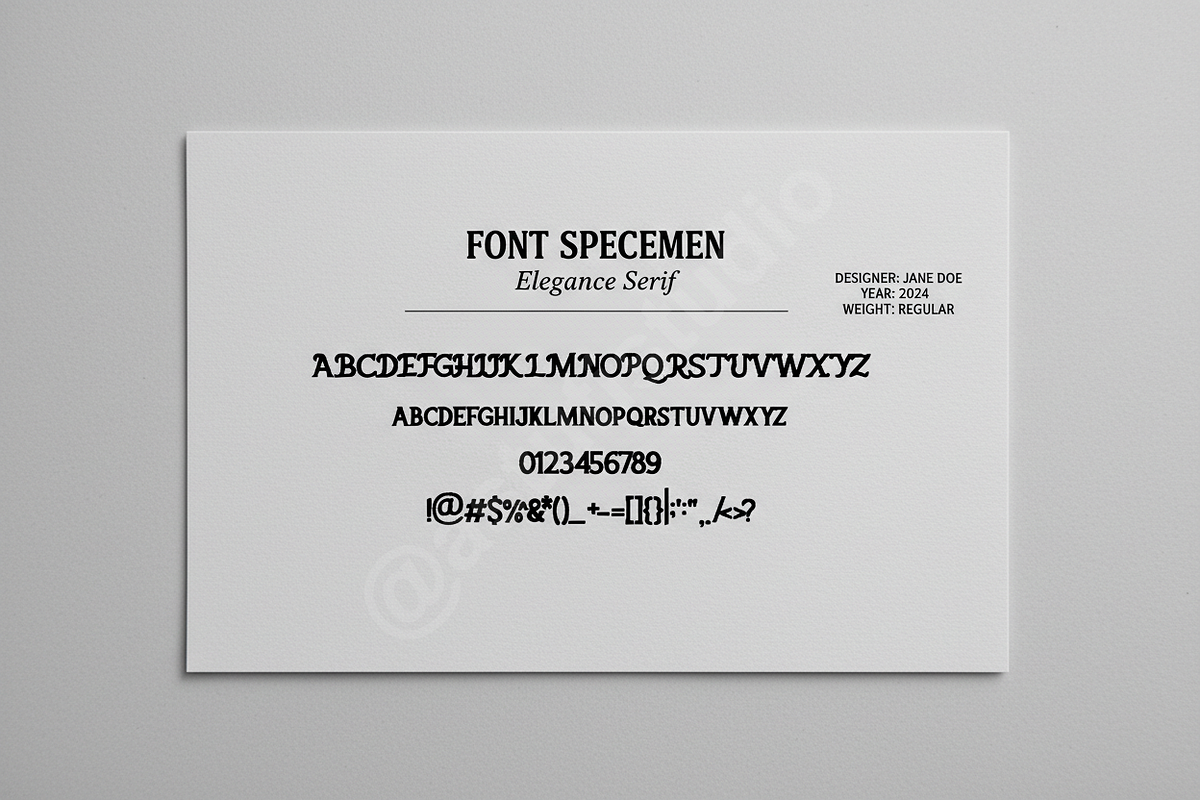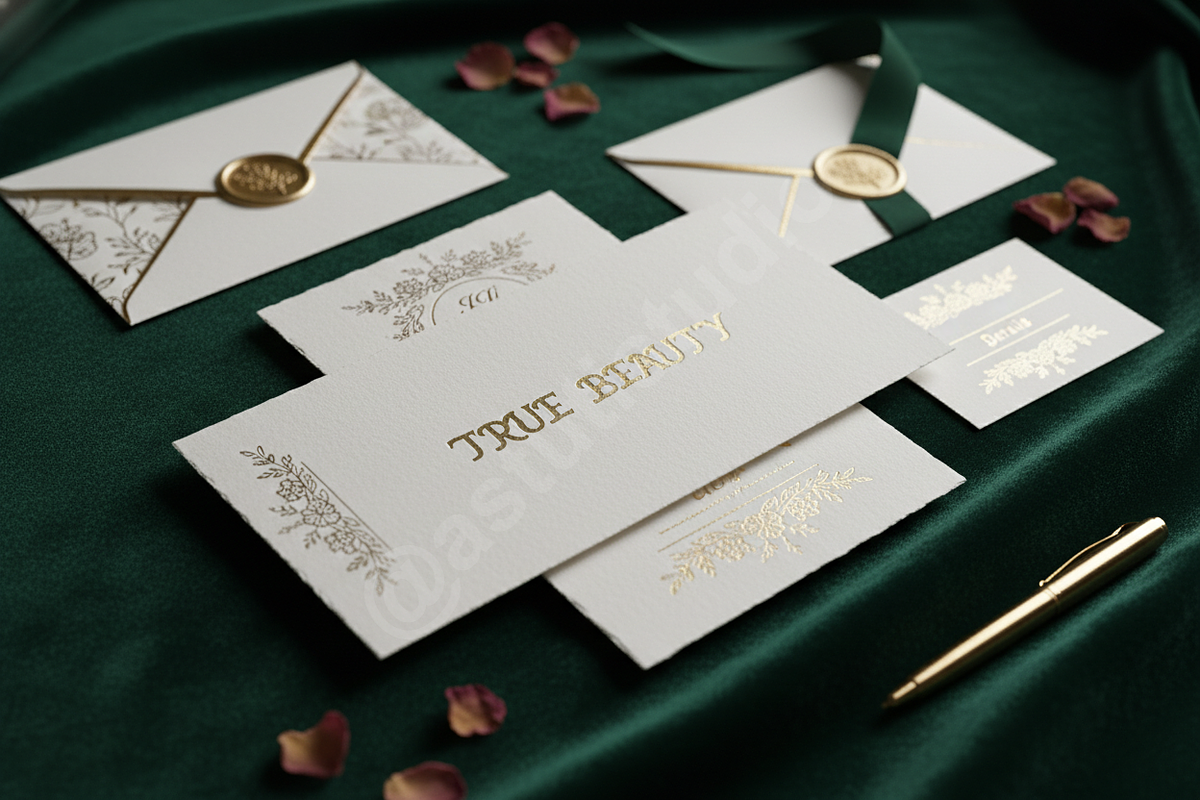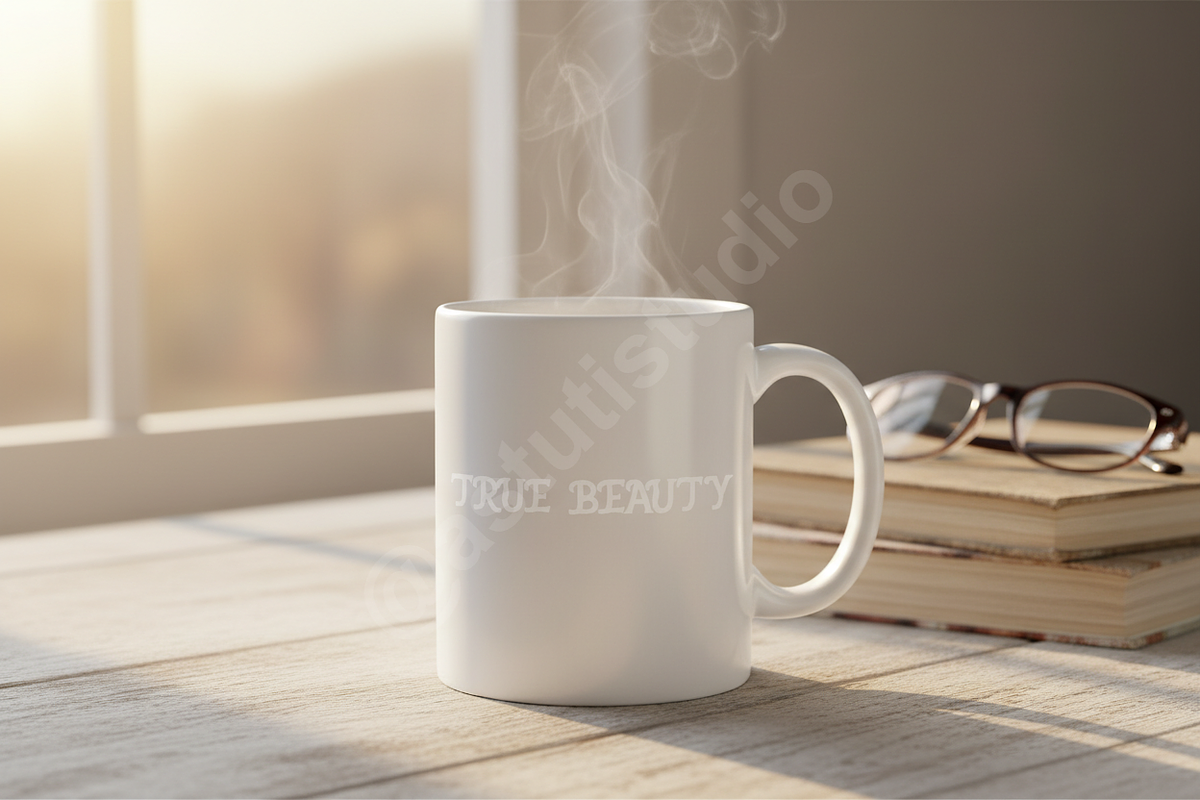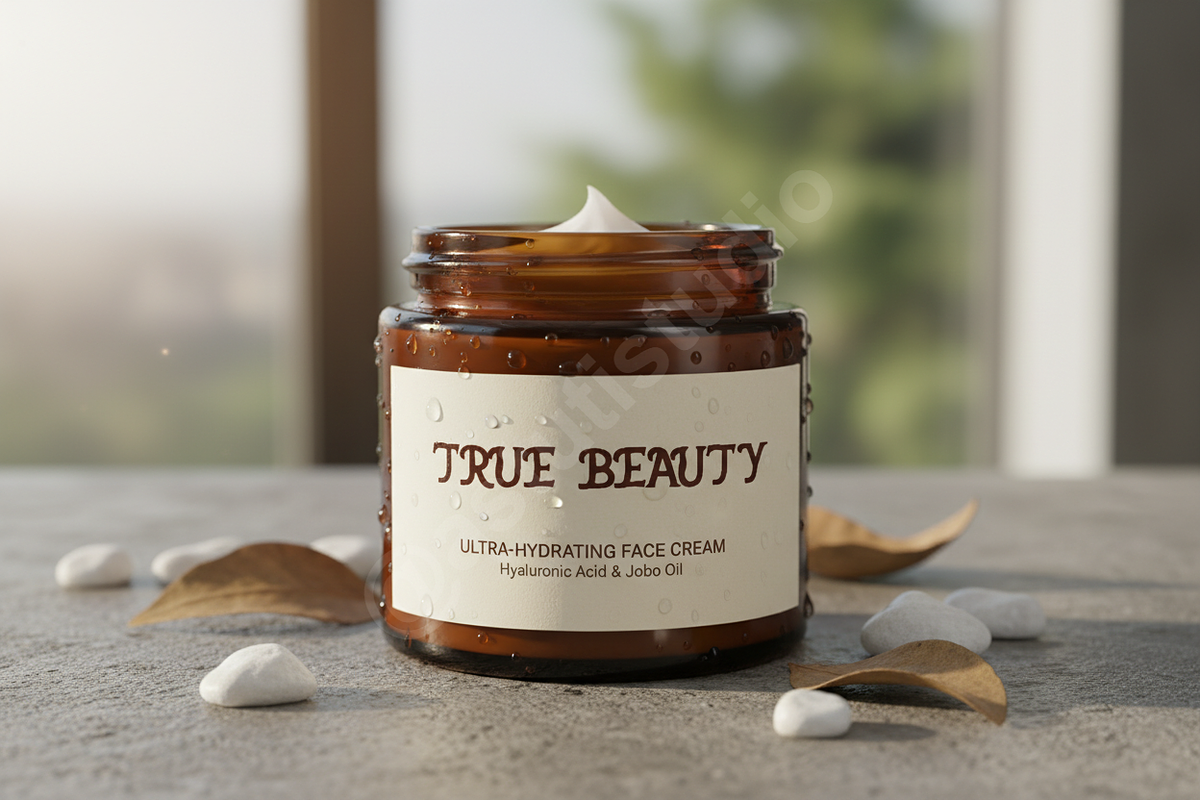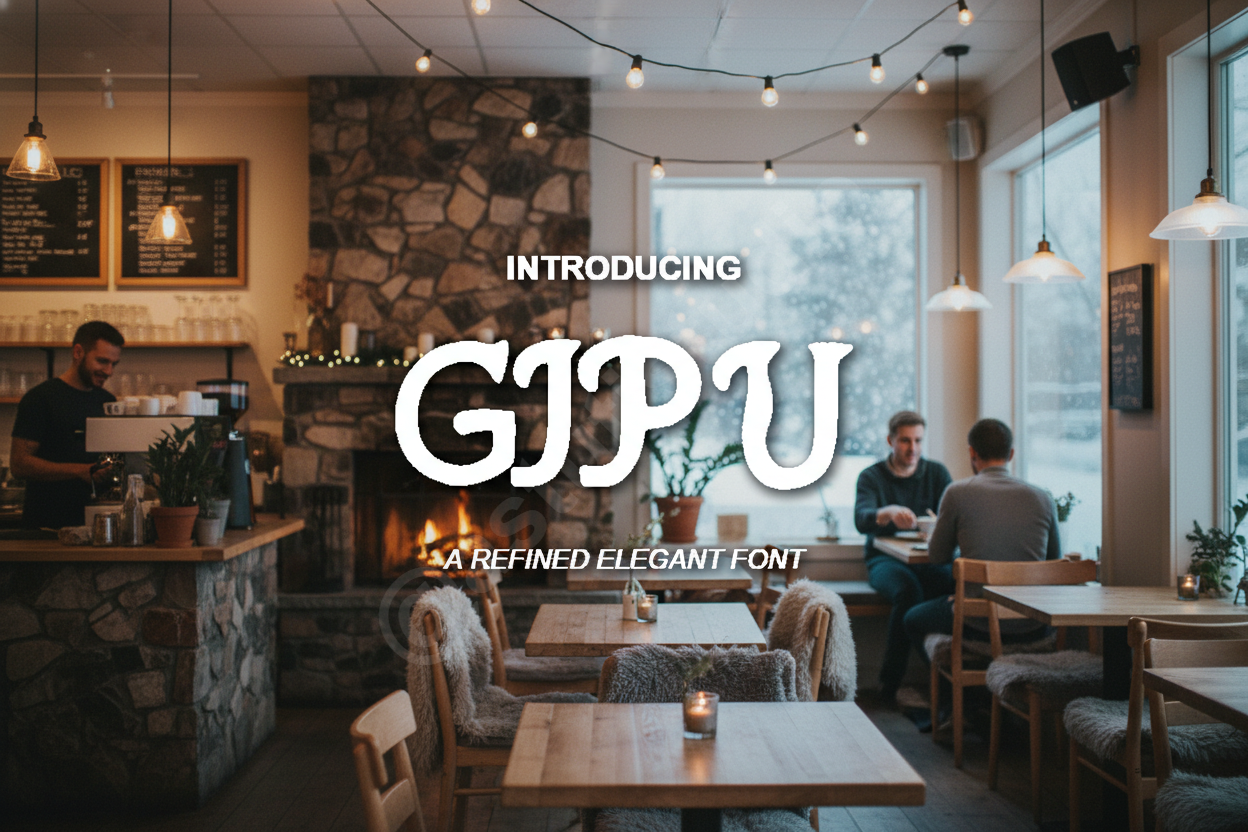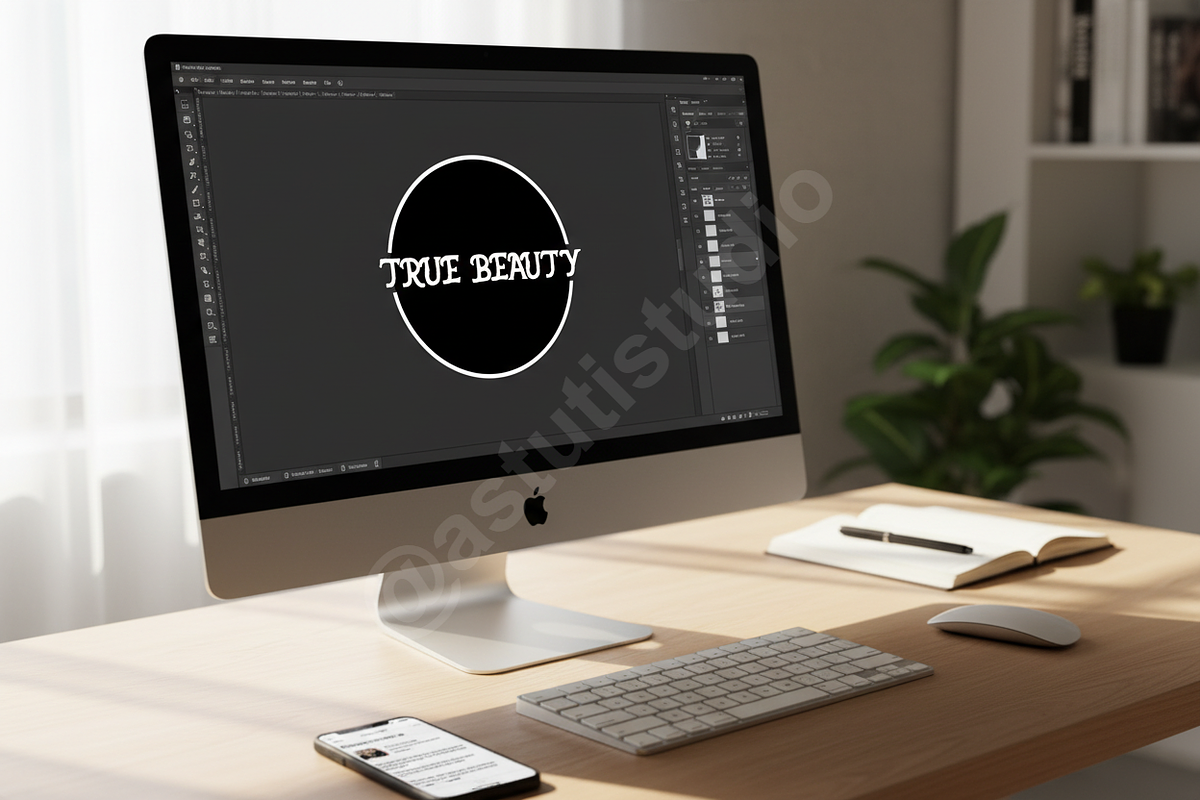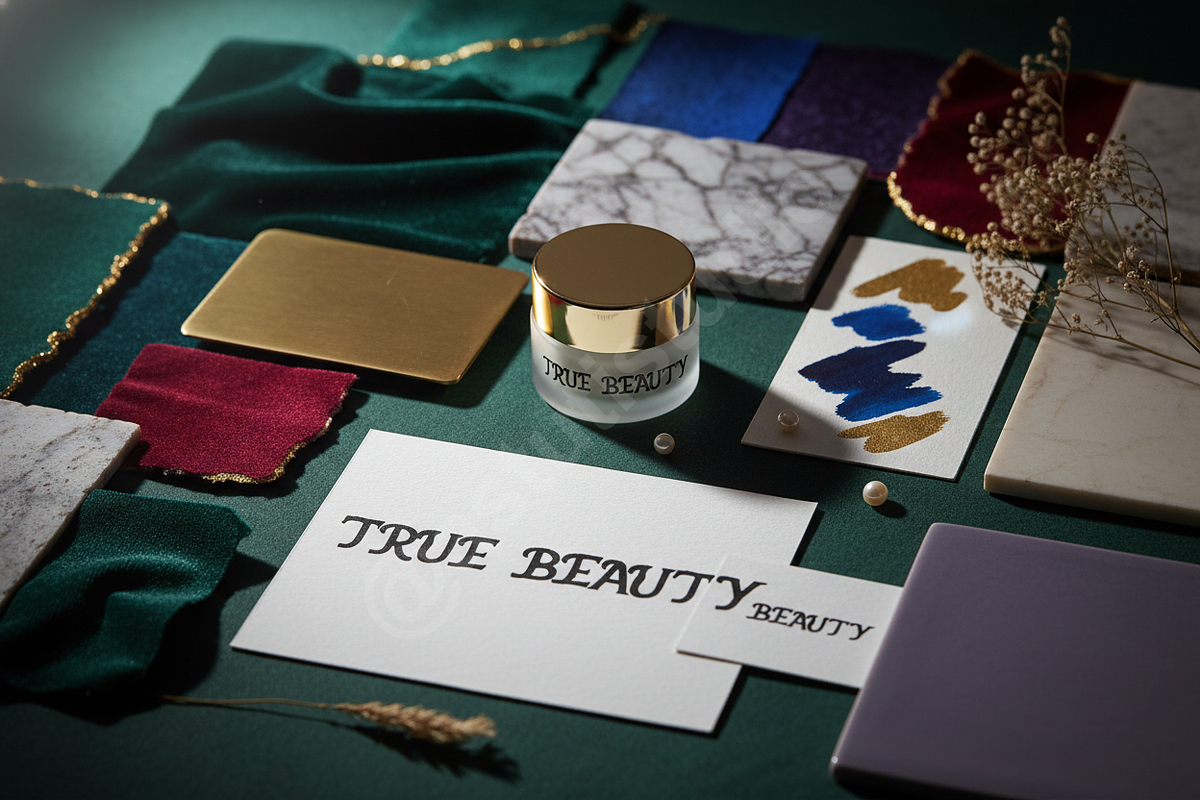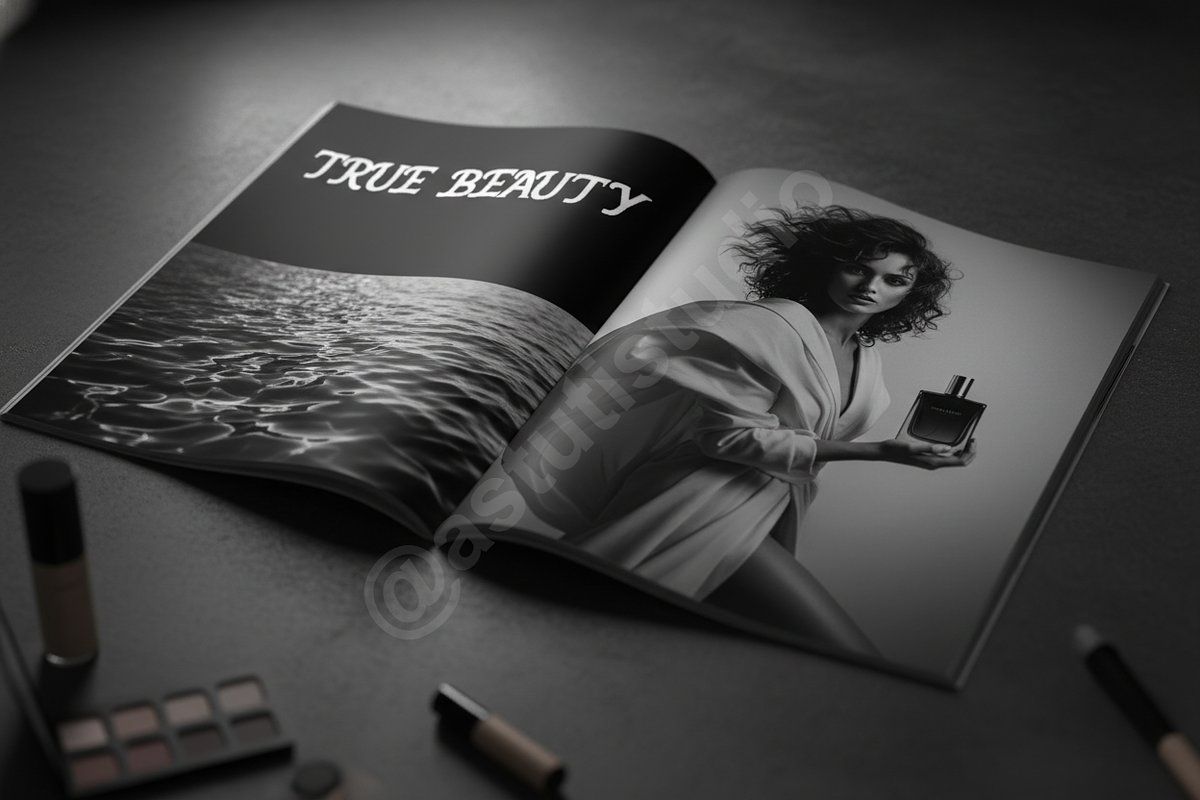
Gipu – Modern Serif Typeface for Lux
Gipu is an exquisite modern serif typeface, meticulously designed to embody sophistication and timeless elegance. Its refined curves and balanced proportions make it the quintessential choice for projects demanding a touch of luxury. Perfectly suited for high-end branding, sophisticated editorial layouts, and captivating social media visuals, Gipu brings a distinctive character that elevates any design, ensuring your message is delivered with unparalleled grace.